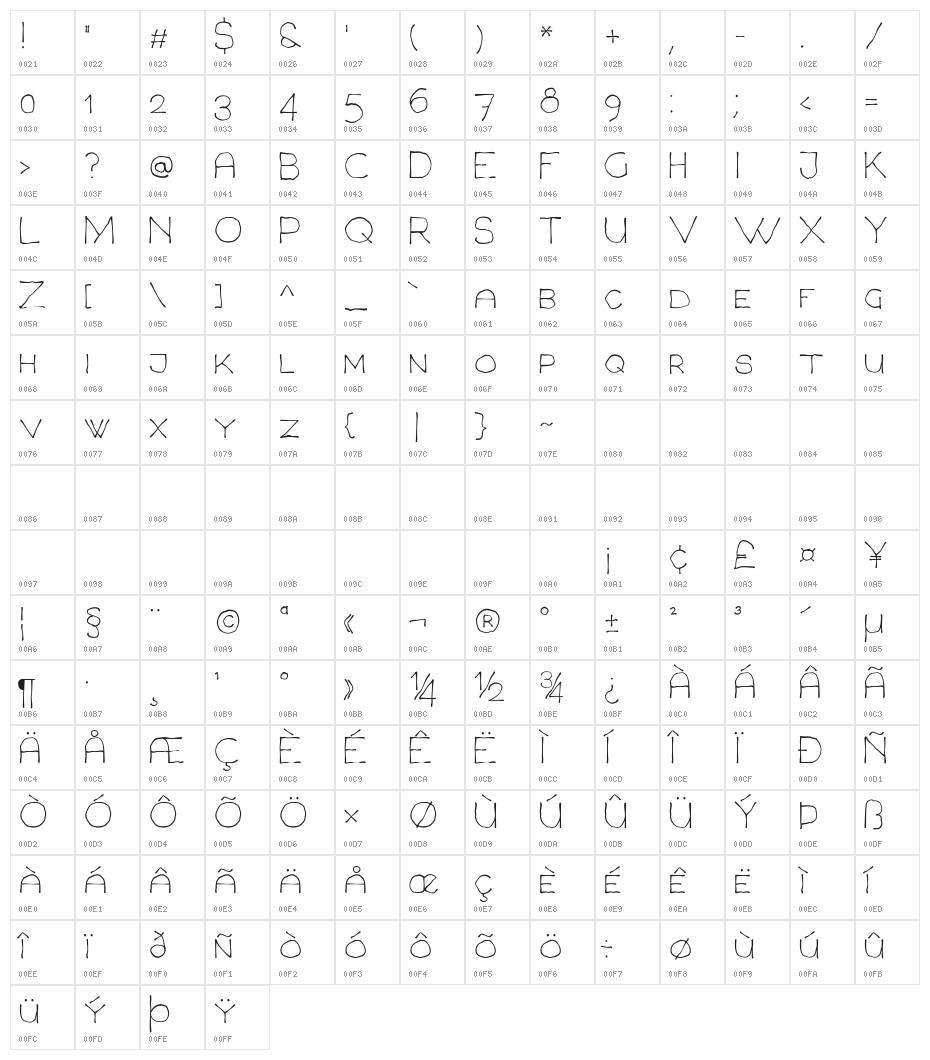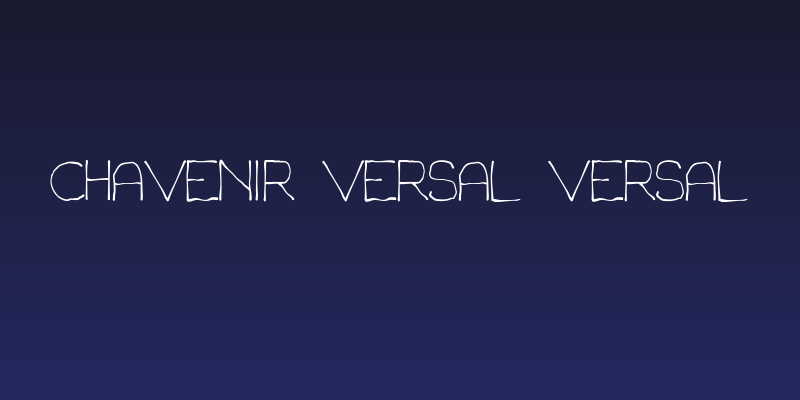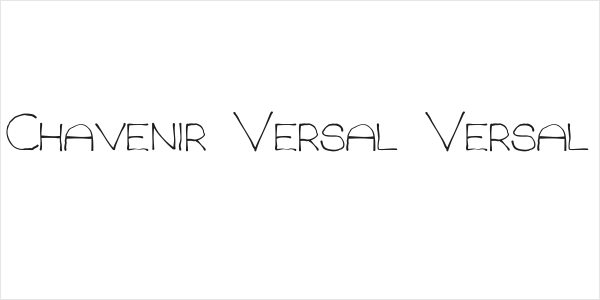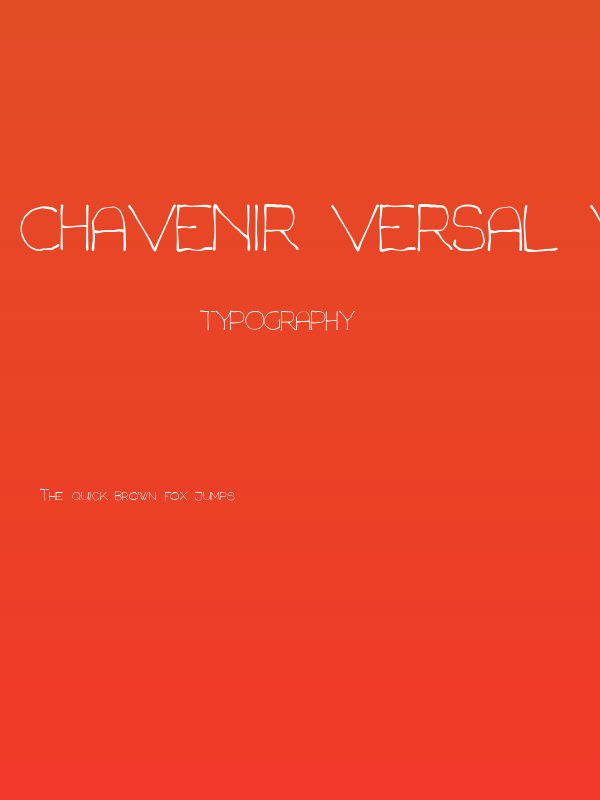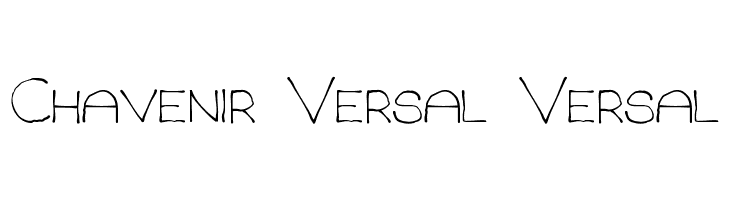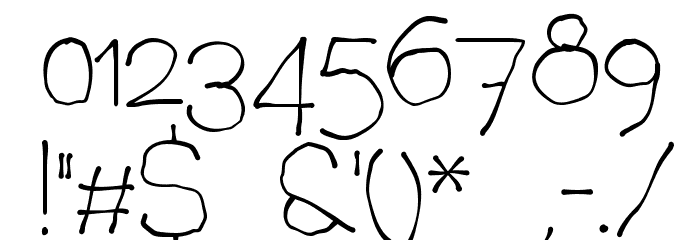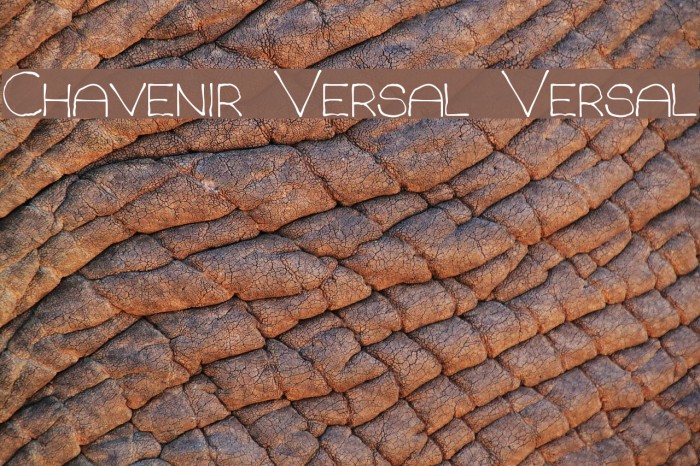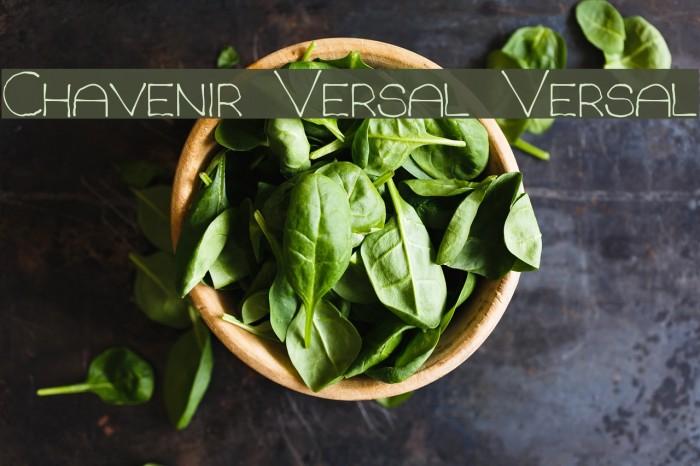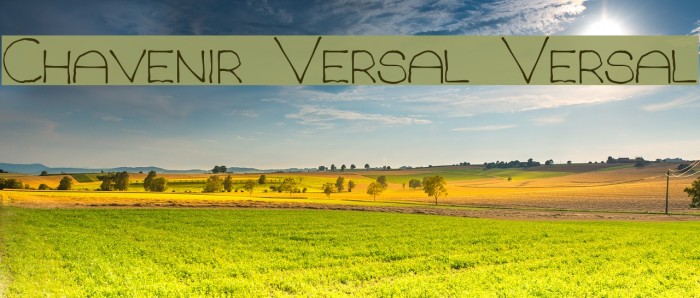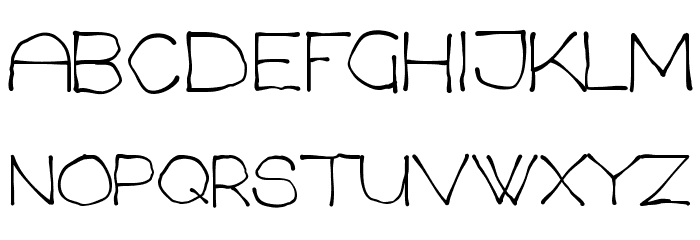
Chavenir Versal Versal Font
Chavenir Versal Versal Description
This font features a playful and hand-drawn style, characterized by its irregular and organic letterforms. The uppercase and lowercase letters exhibit a casual, almost whimsical appearance, with uneven strokes and varying line thicknesses that give it a unique, artistic flair. The numerals and special characters maintain this informal aesthetic, making the font suitable for creative and informal applications. Its distinctiveness lies in the hand-crafted look, which adds a personal touch to any design project.
| Use Case | Headlines, Logos, Creative projects |
| Proposed Projects | Ideal for children's books, greeting cards, creative posters, and artistic branding projects. |